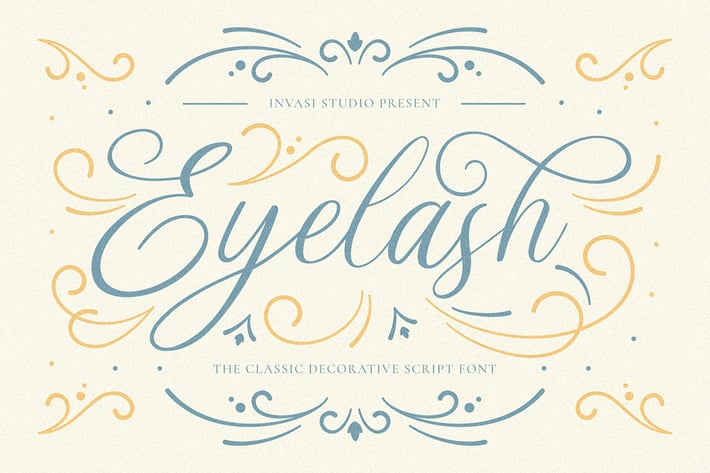
Eyelash - Decorative Script Font
The Eyelash Font is a beautiful, elegant classic calligraphy script. Feature distinctive curves at the start and end of the design with upper and lower-case engravings.
This font is also equipped with features to support your needs such as ligatures, alternative characters, and multi-language support. This font is perfect for your design needs such as branding, logo design, wedding invitations, decorations, and more.
- Total 234 Glyph
- Uppercase & Lowercase
- Ligatures & Alternative Character
- Multilanguage Supports 60+ Latin-based languages